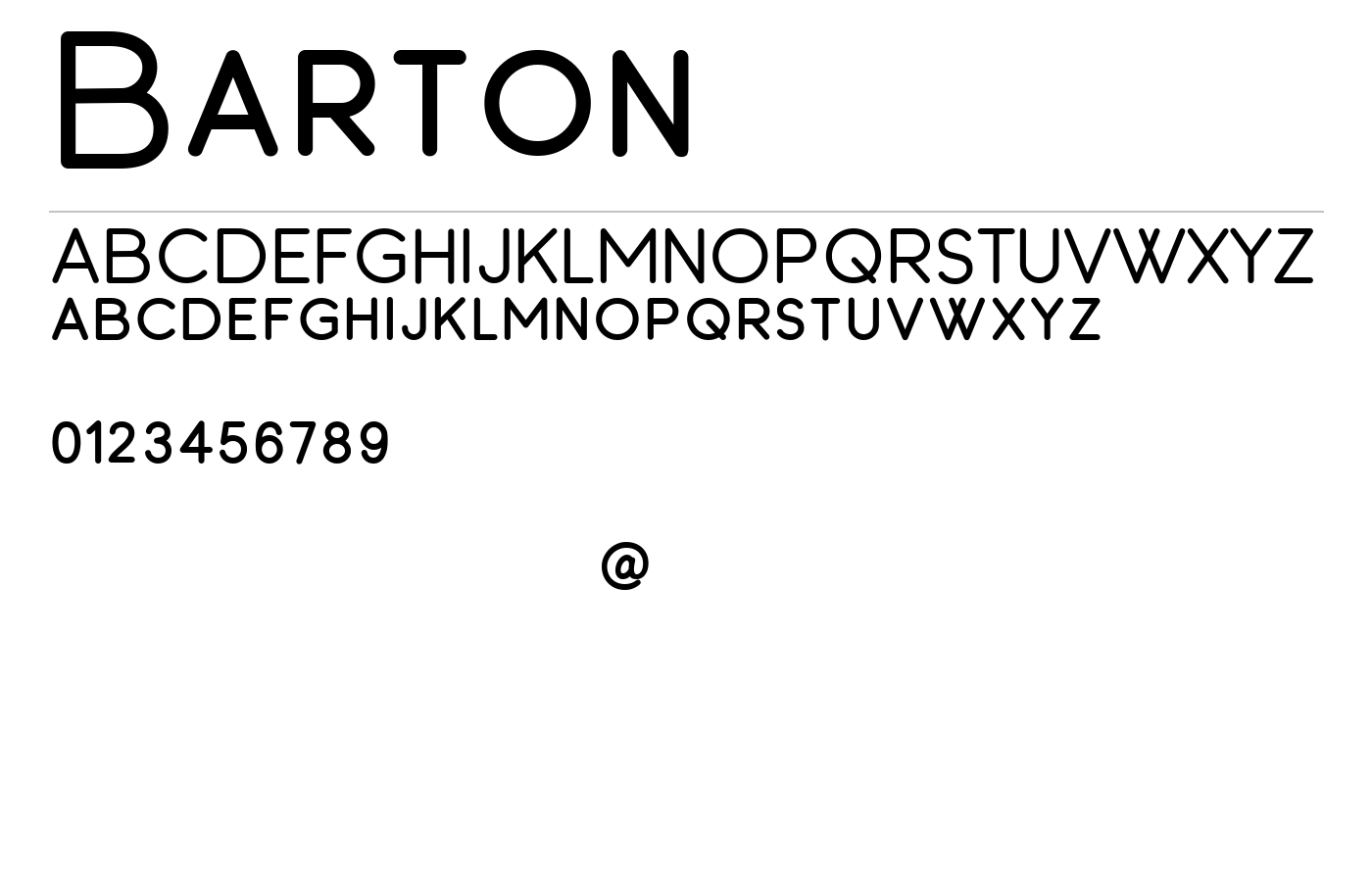
Barton is a clean and modern sans serif font characterized by its geometric shapes and even stroke weight, creating a balanced and approachable look. Its upright, narrow letterforms with rounded ends give it a friendly yet professional feel, making it ideal for branding, editorial design, and user interfaces where clarity and a contemporary vibe are desired. This font works well for headlines and logos that require a straightforward and stylish presence.
Barton Font
About Barton Font